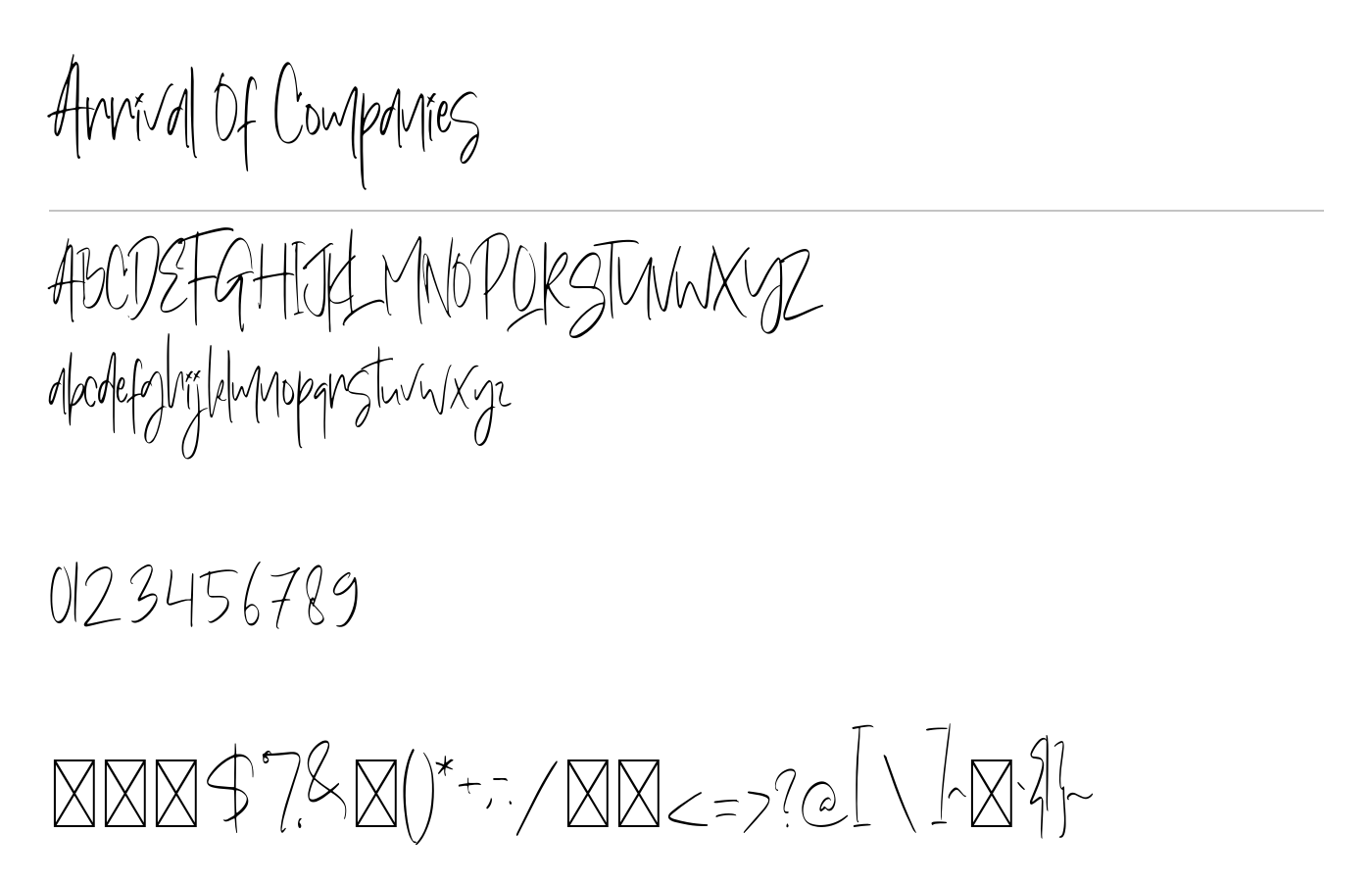
Arrival Of Companies is a whimsical and highly expressive handwritten font with slender, tall letterforms that create a casual yet artistic feel. Its irregular strokes and uneven baseline give it a raw, spontaneous character perfect for creative projects needing a personal, informal touch. This font works well for invitations, artistic branding, and playful headlines where a unique, hand-drawn vibe is desired.
Arrival Of Companies Font
About Arrival Of Companies Font
| Font family | Arrival Of Companies Font |
| Designer | Ghazi Humam Fauzan |